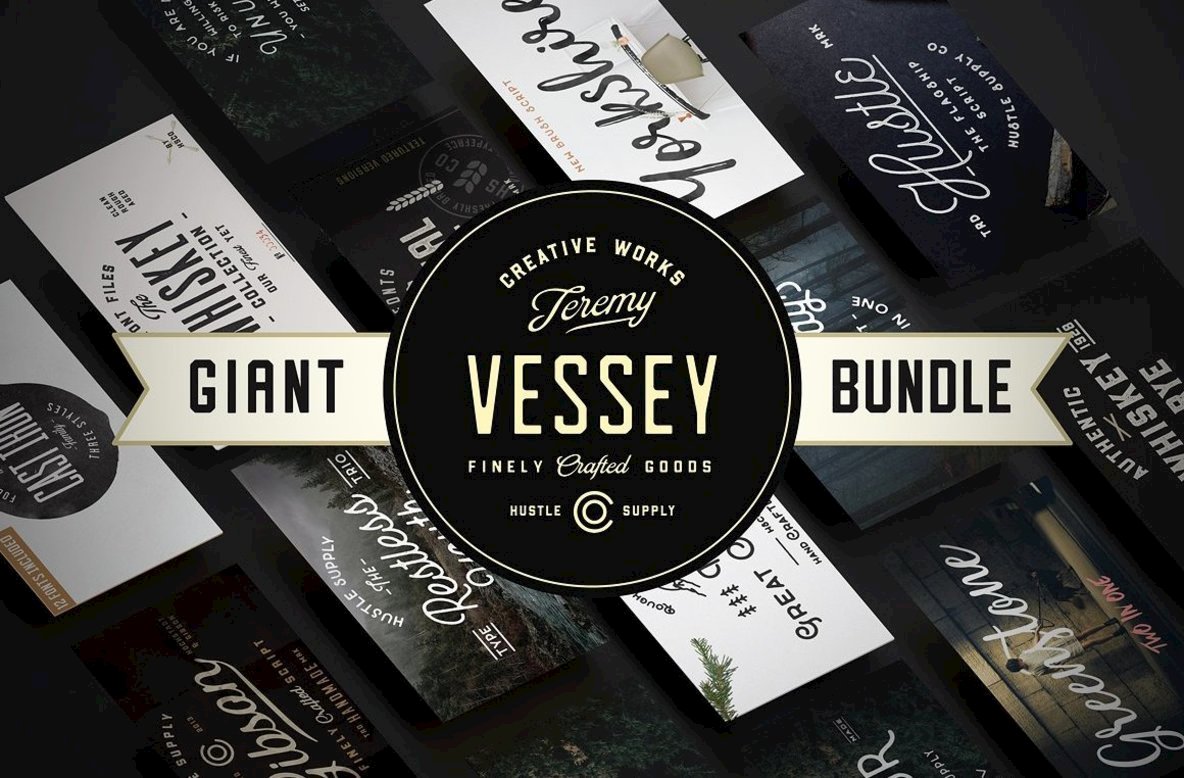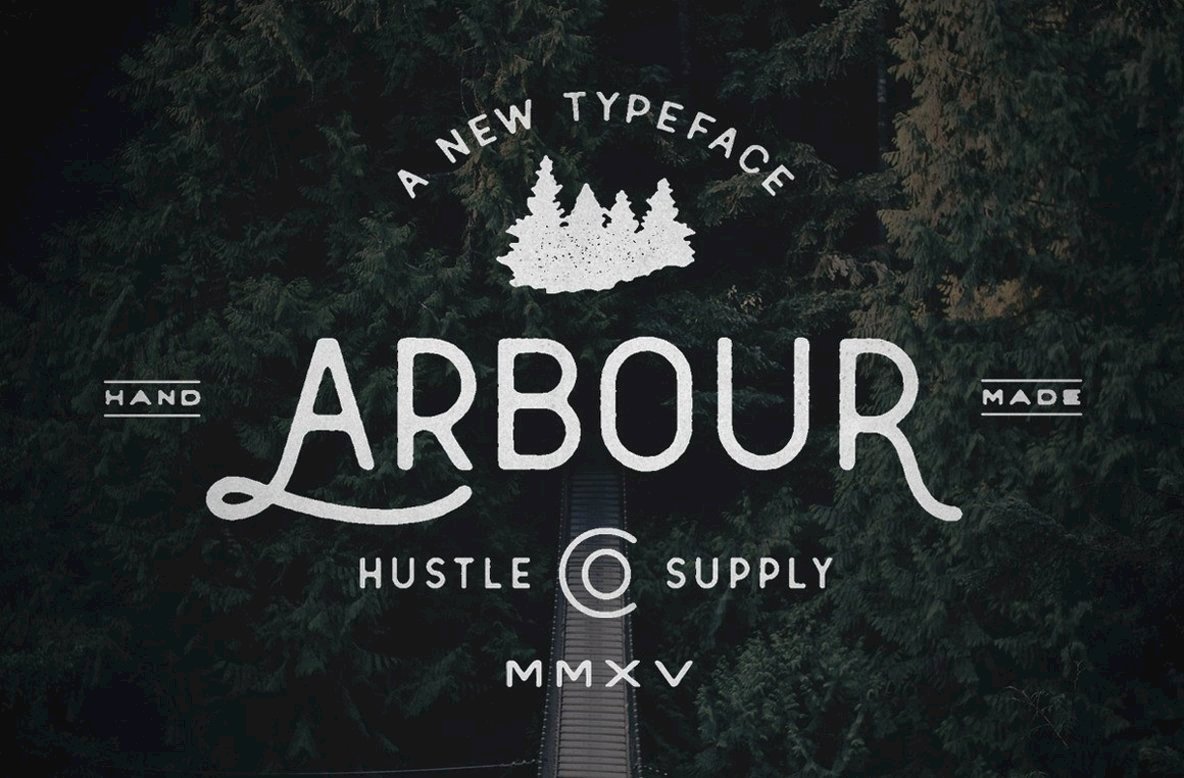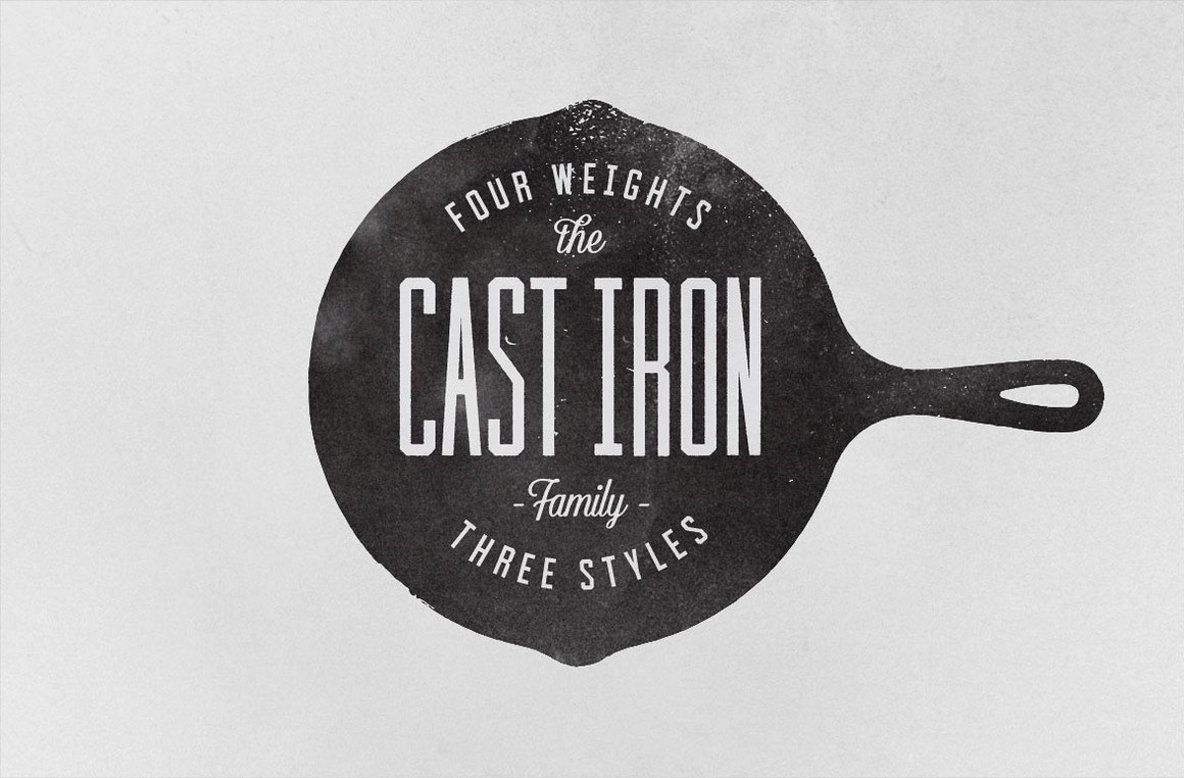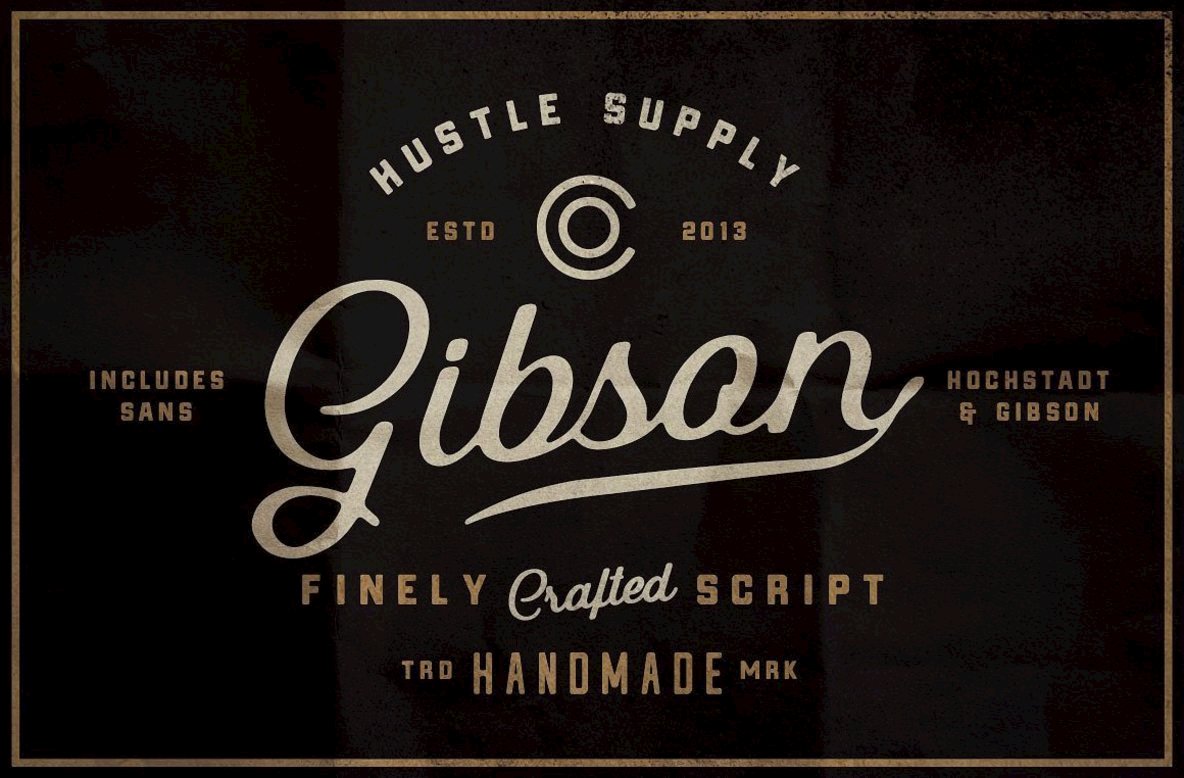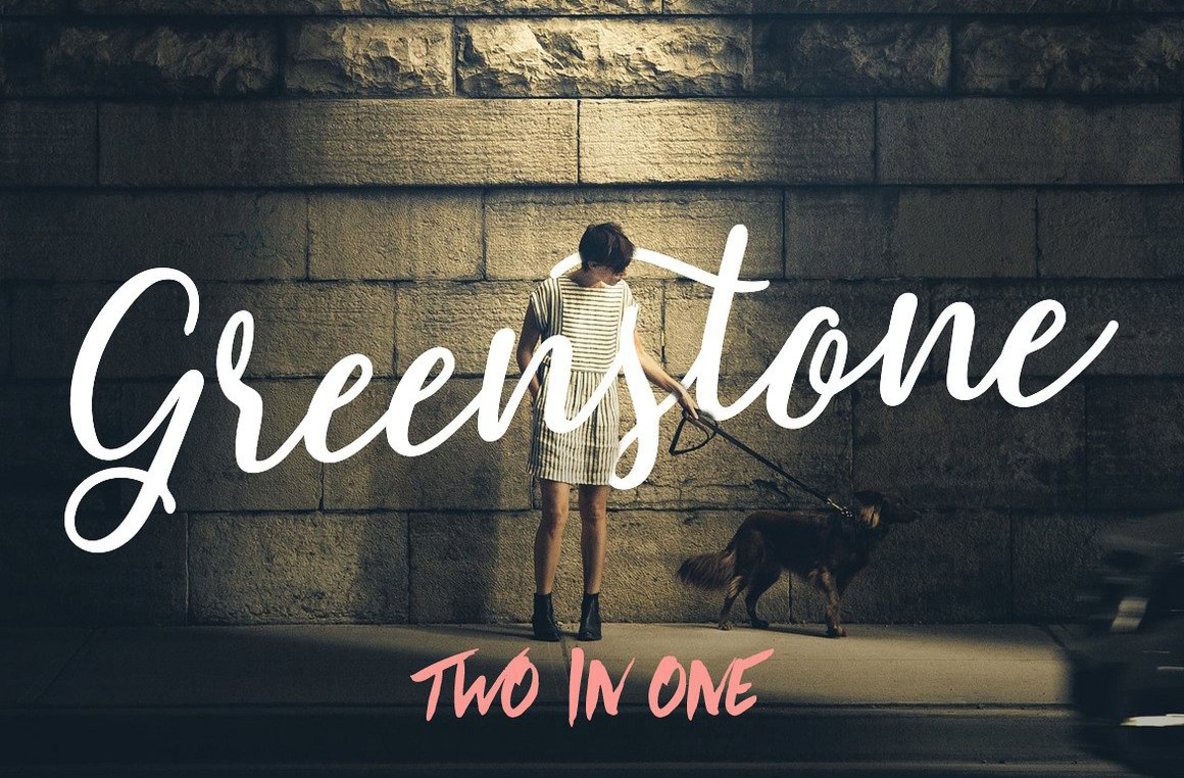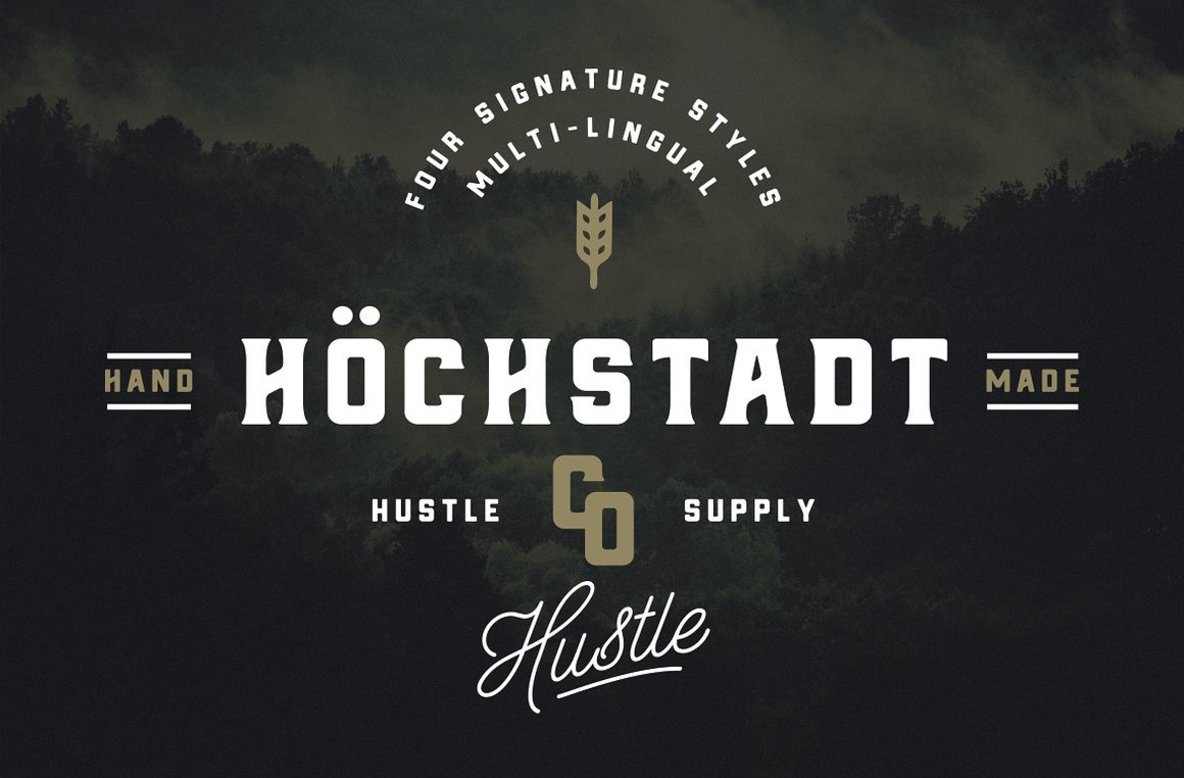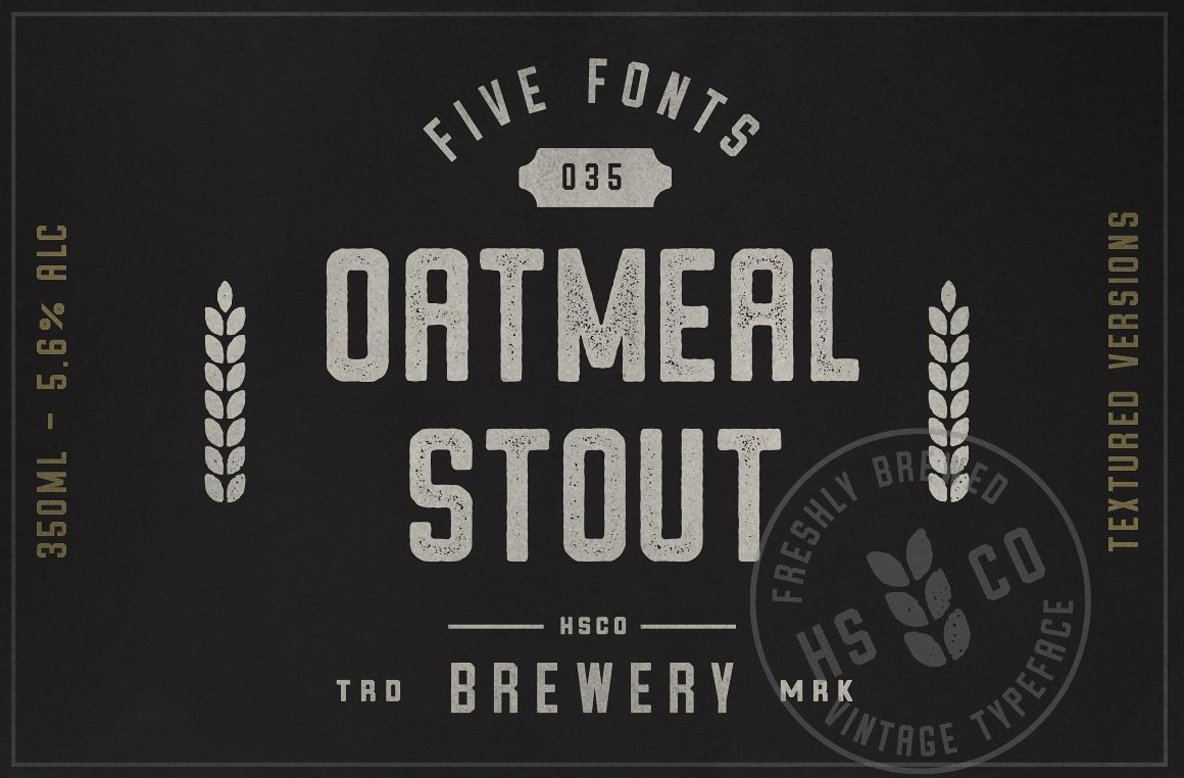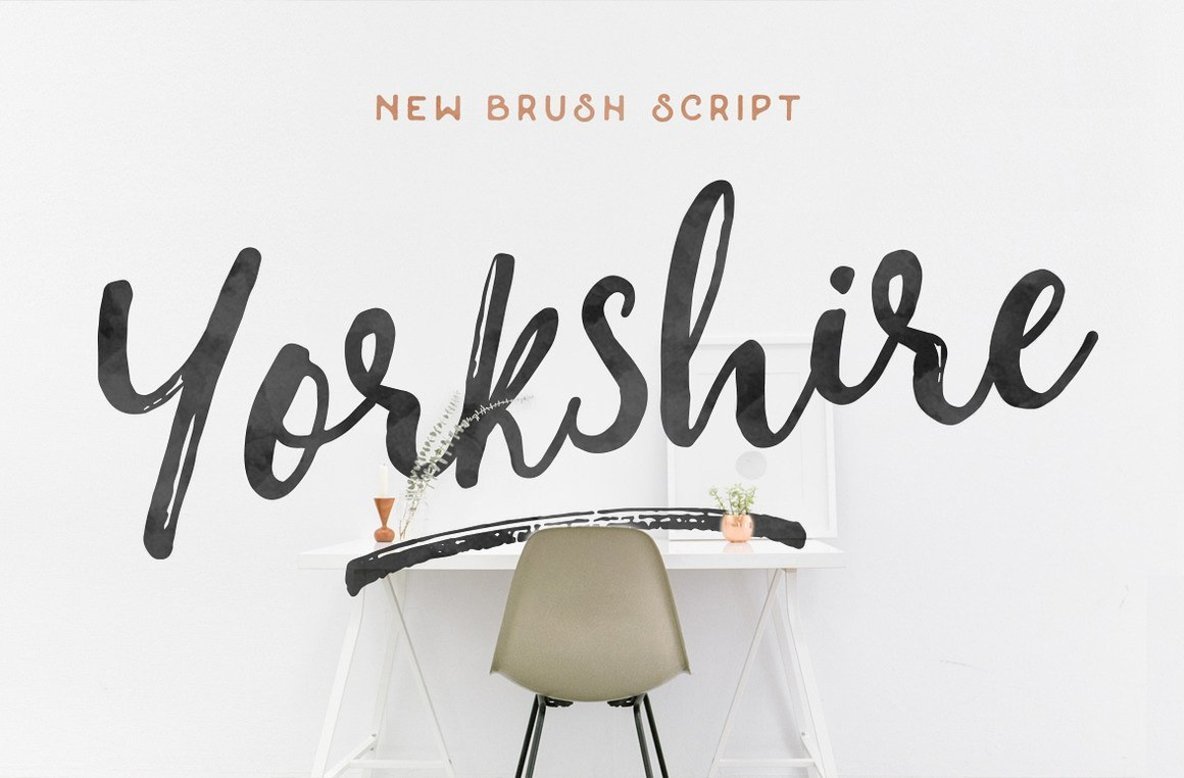
The Giant Font Bundle
The Giant Bundle is a collection of 50+ fonts consisting of 12 high selling products by Jeremy Vessey. Including best selling products The Whiskey Font Collection, Yorkshire, The Restless Youth Trio, Oatmeal Stout, Gibson Script, The Cast Iron Family, Hustle Script, Pathways, Hochstadt, Greenstone + Summer Hearts, The Great Outdoors & Arbour.
This collection stands out as a diverse selection of typefaces that maintain a coherent look and feel throughout. These typefaces are already in use by some of the world’s top brands, agencies & reputable graphic designers. For only $29, you can’t lose.